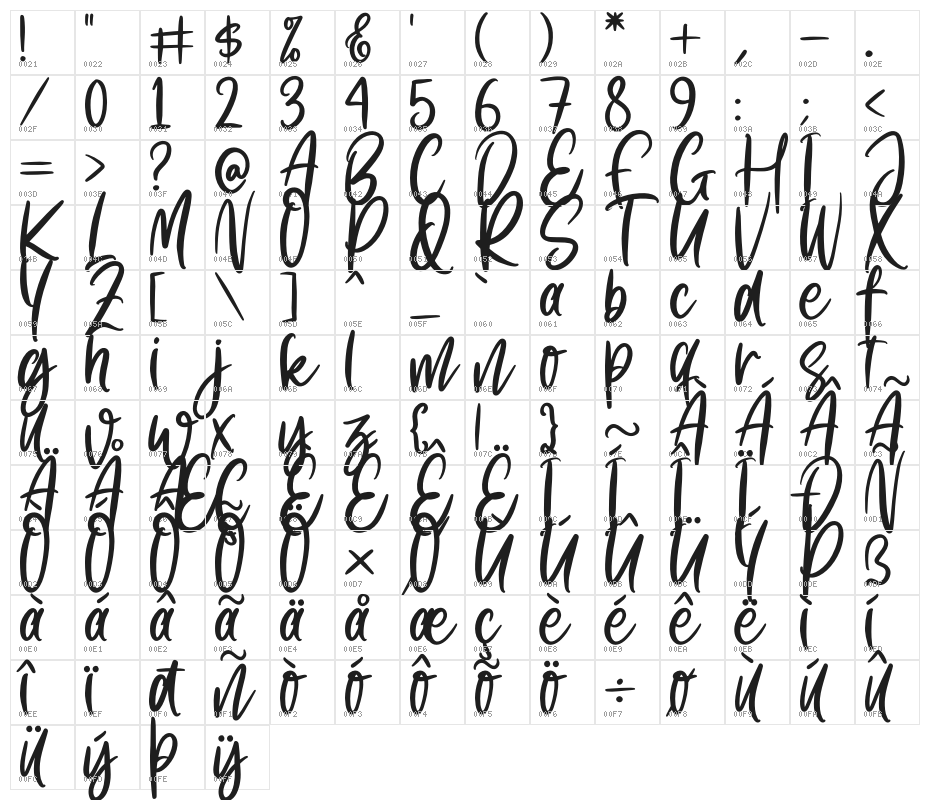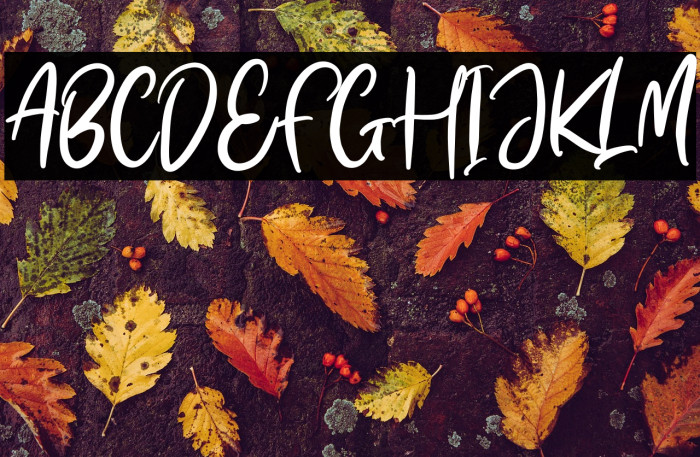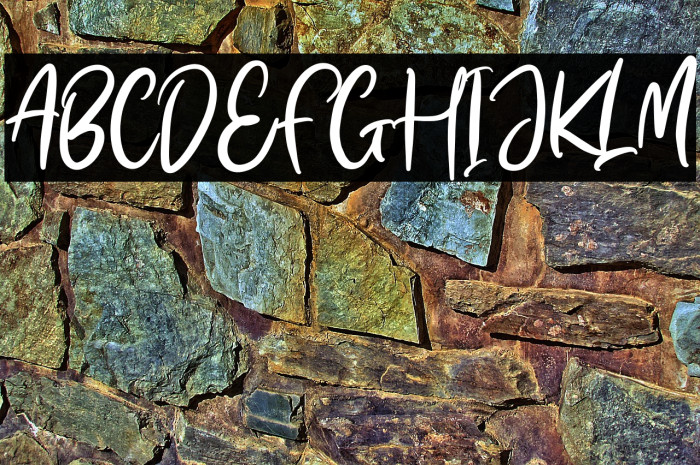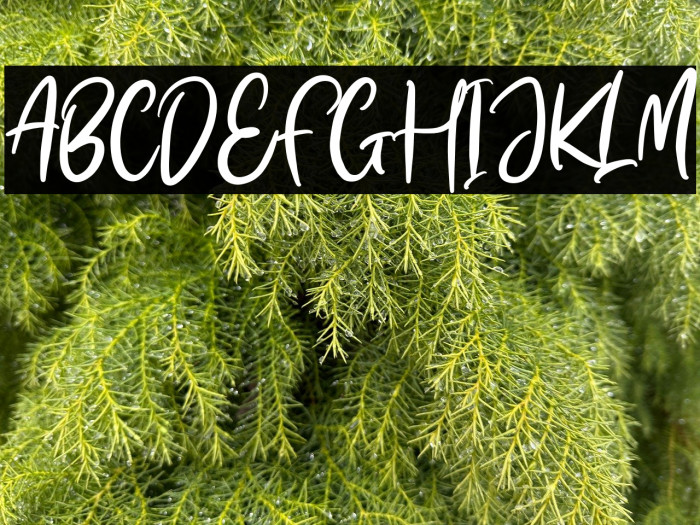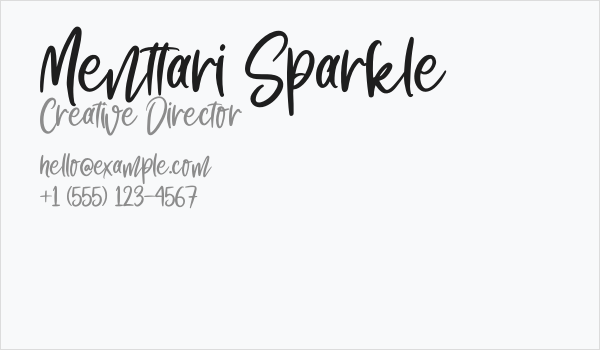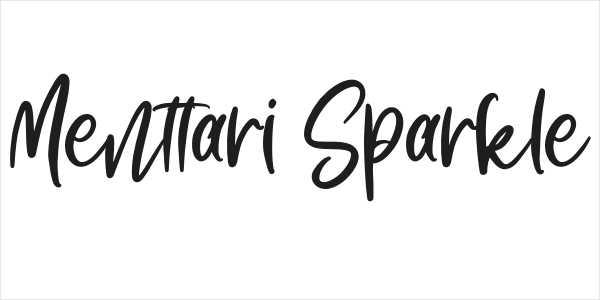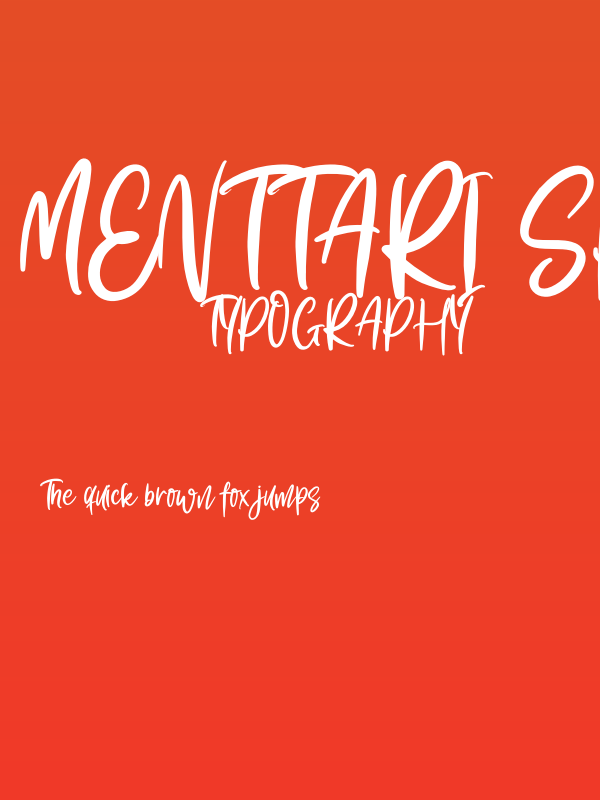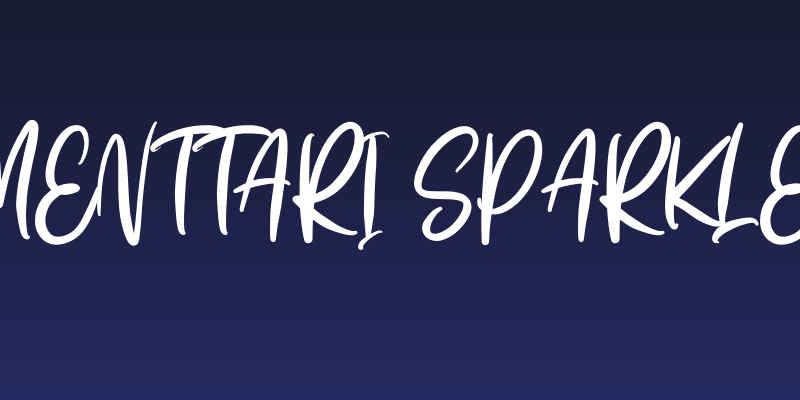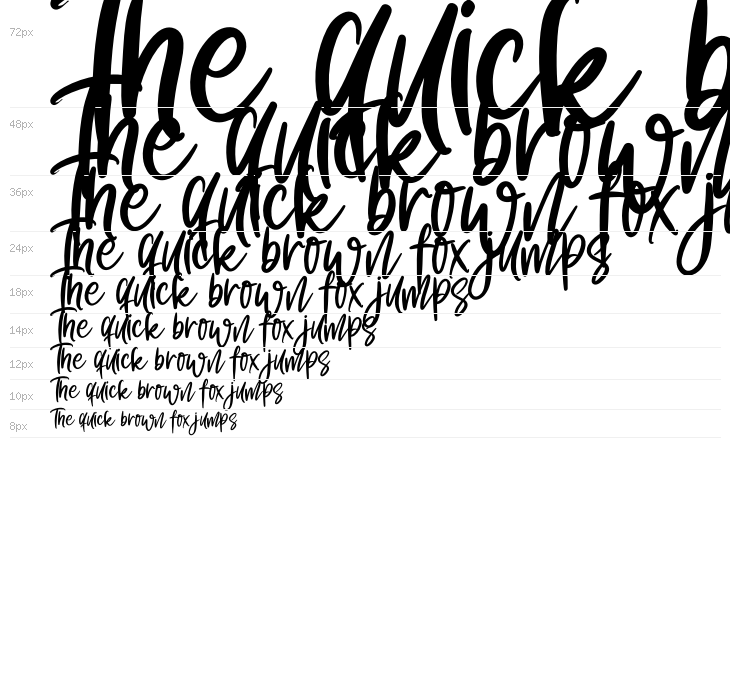
Menttari Sparkle Font
Menttari Sparkle Description
This font features a dynamic and energetic script style, characterized by its bold and fluid strokes. The letters are crafted with a sense of movement, giving them a lively and spontaneous appearance. The uppercase and lowercase letters maintain a consistent flow, with some characters exhibiting unique loops and curves that add to the font's playful nature. The numerals and special characters are equally expressive, maintaining the same energetic style. This font is ideal for projects that require a personal and artistic touch, such as invitations, posters, and branding materials.
| Proposed Projects | Ideal for invitations, posters, branding materials, and artistic projects. |